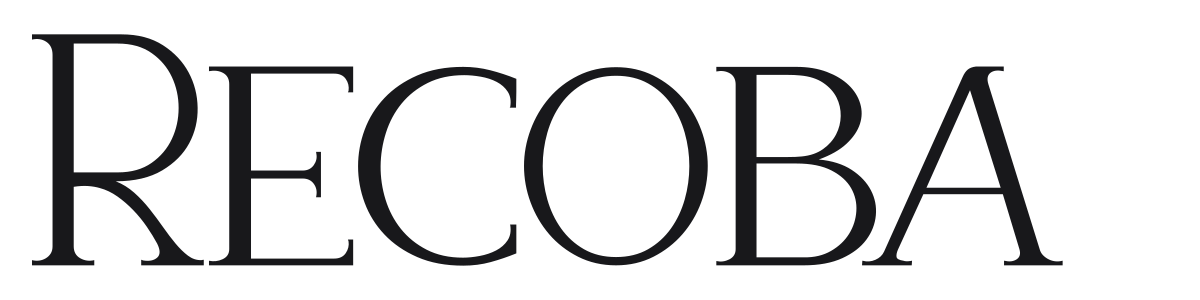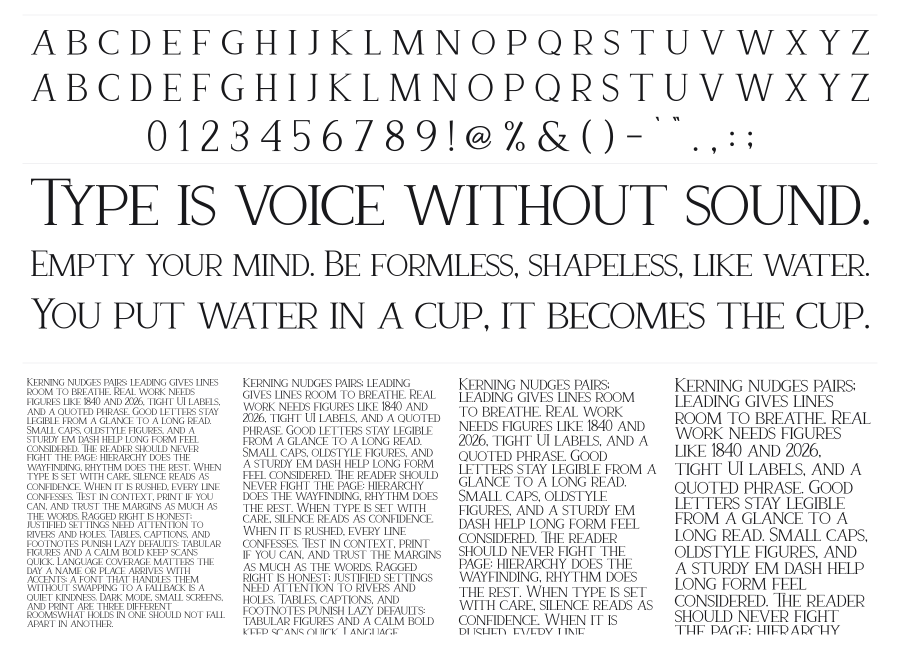
Recoba
Recoba is a high-contrast modern serif with dramatic hairline strokes and bold thick stems in the Didone tradition. The wide, airy spacing and flat unbracketed serifs give it a contemporary fashion-magazine quality. It shines on covers, logotypes, and any headline that needs to feel expensive.